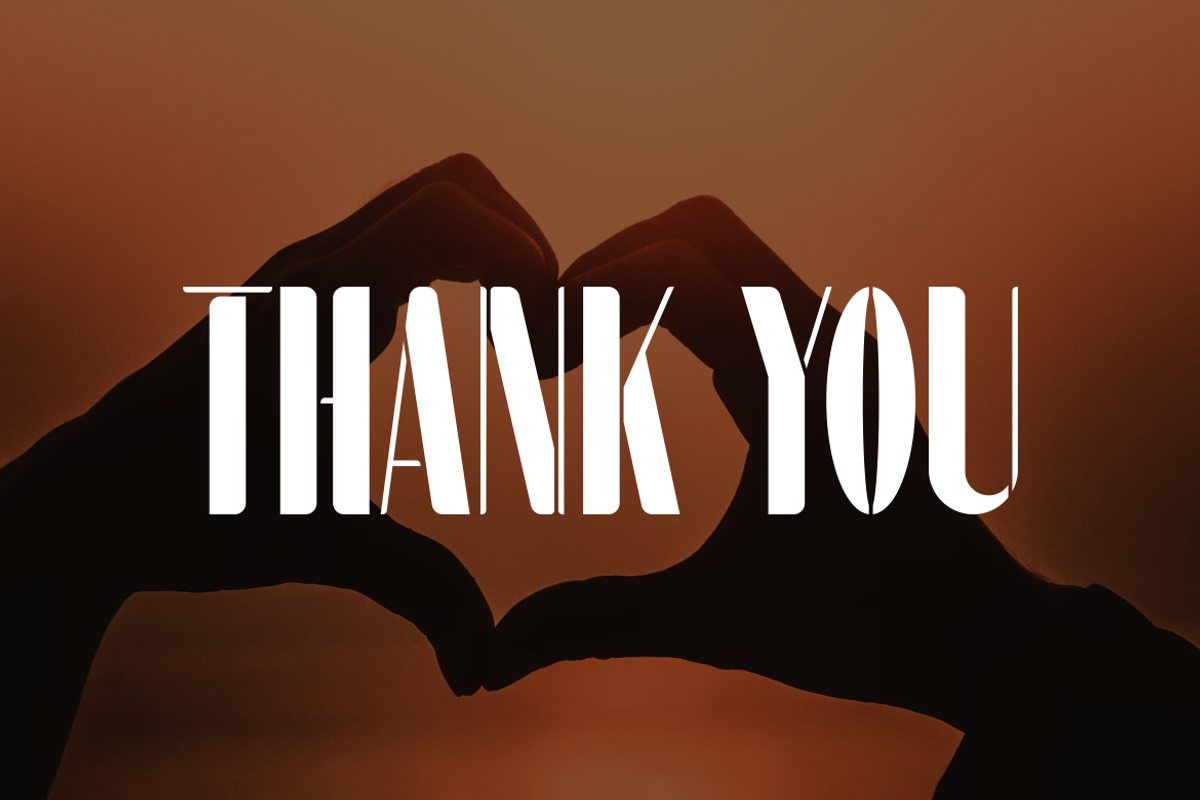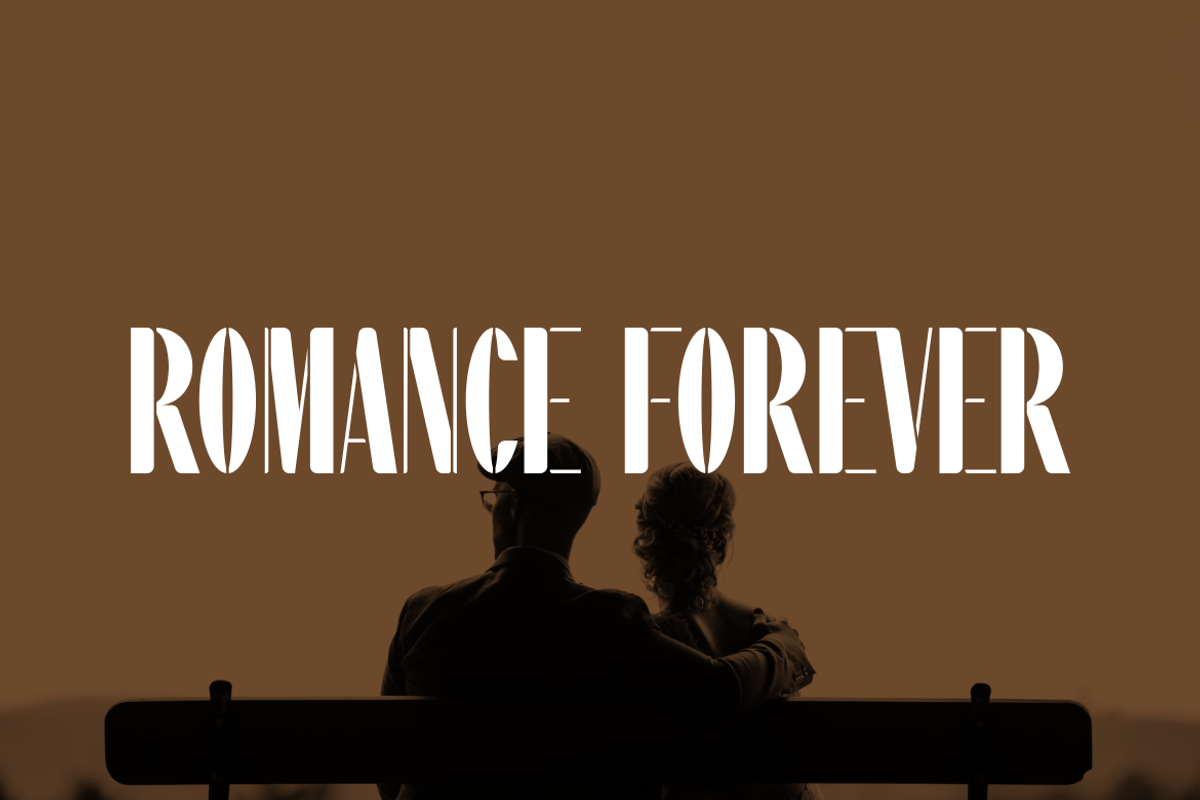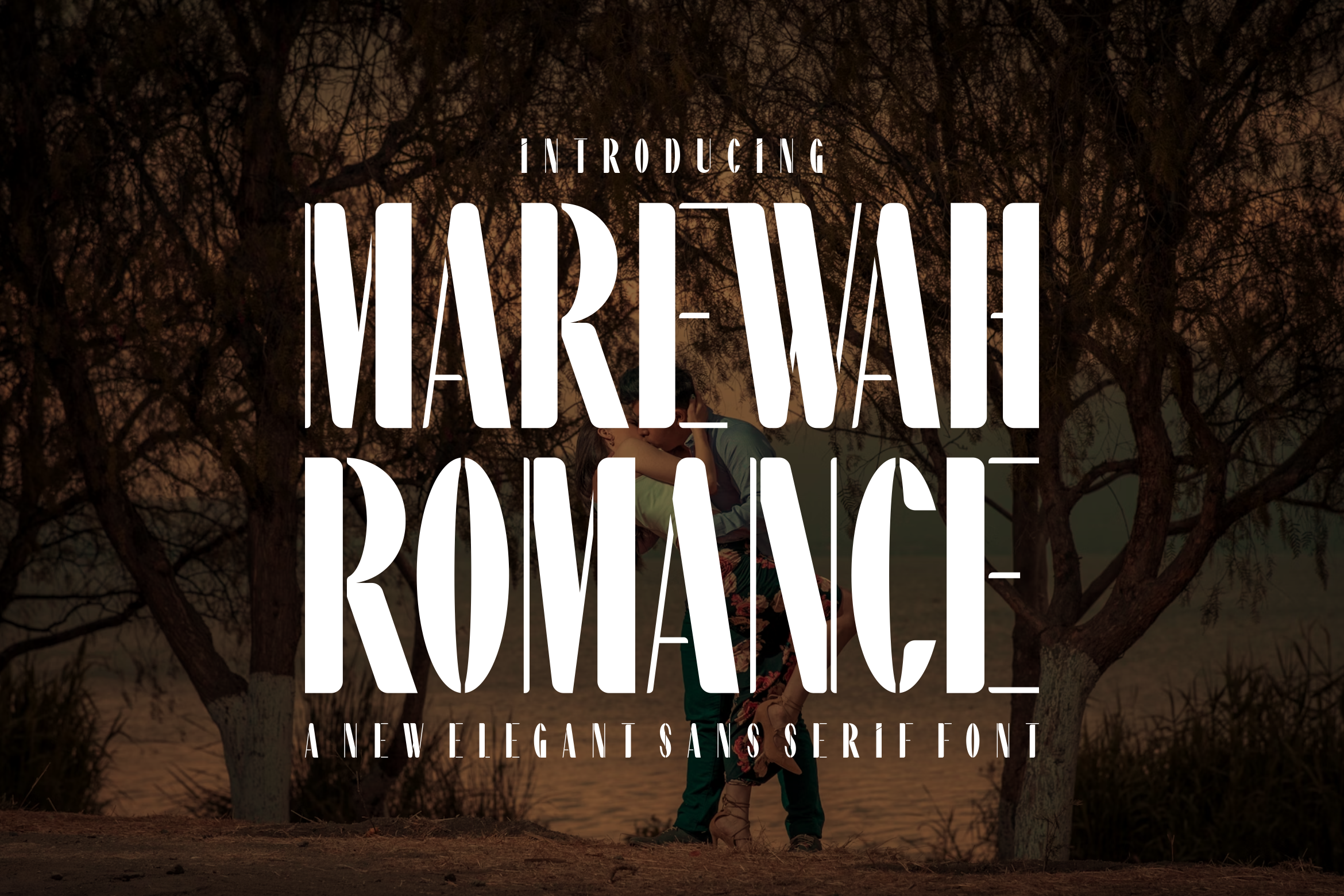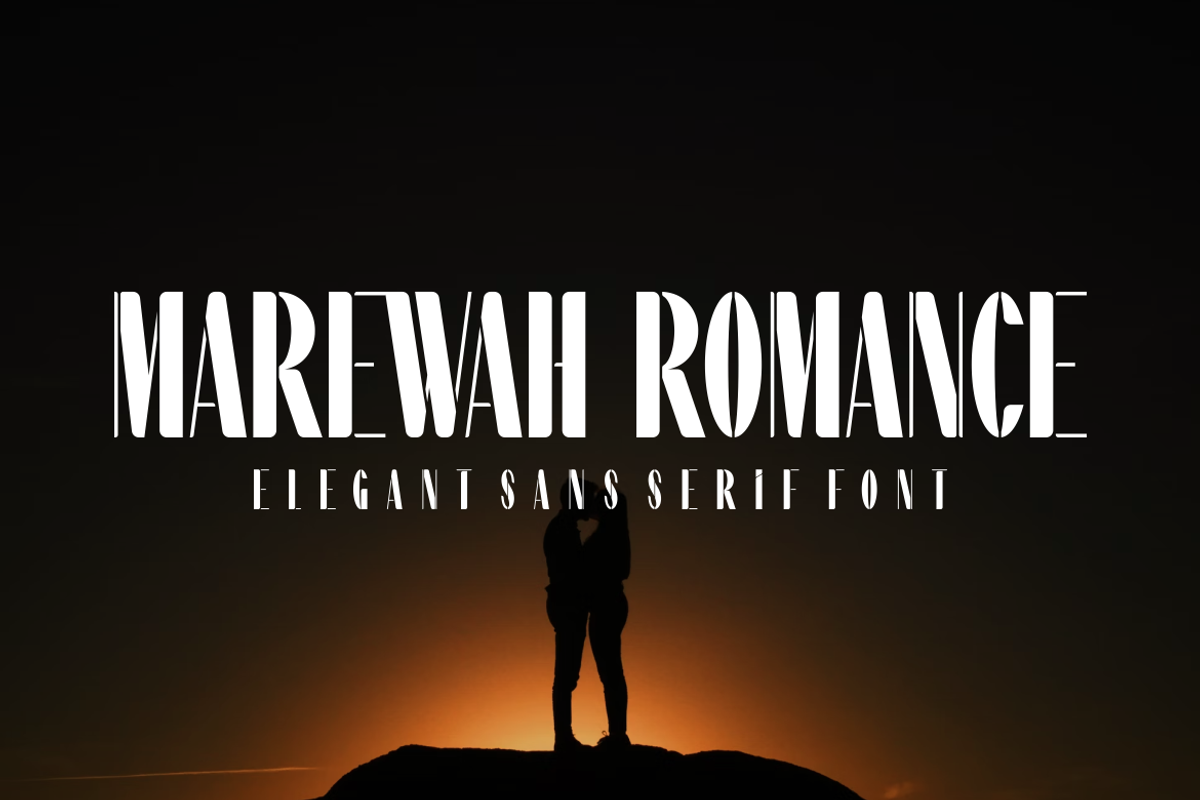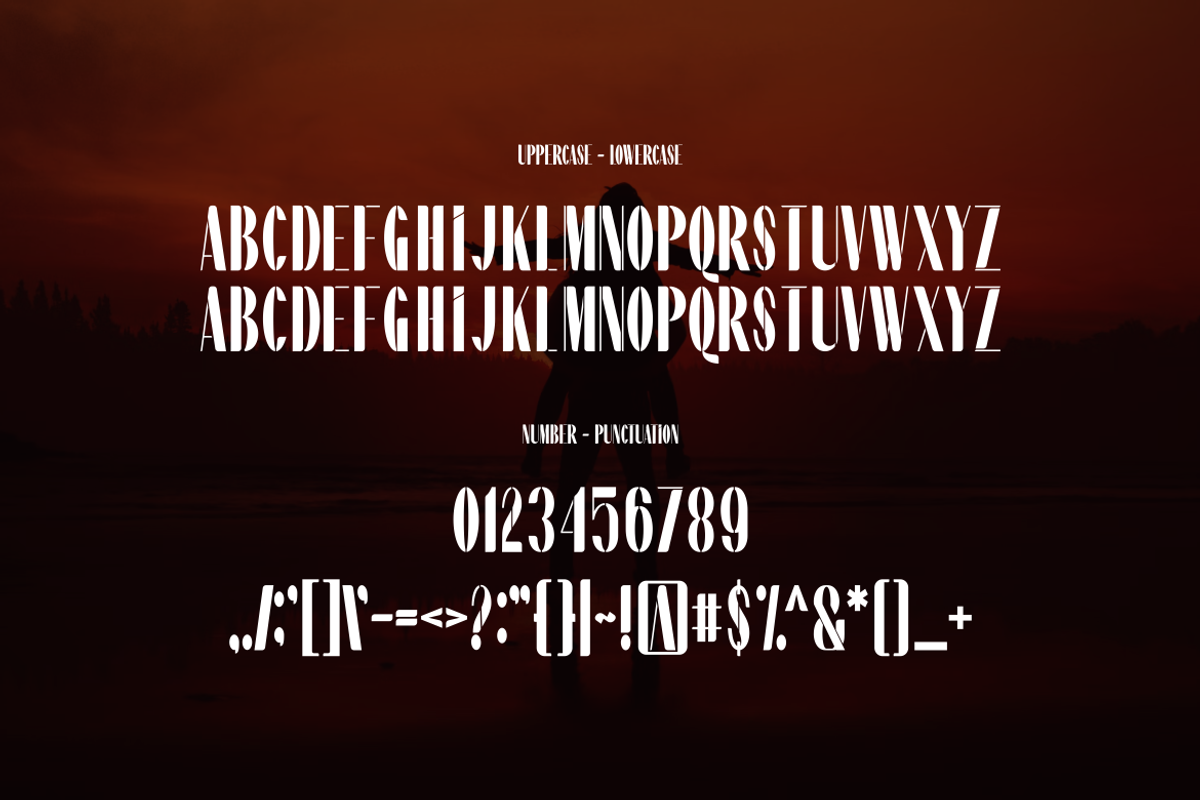
Marewah Romance - Font
- Modern Font is a bold and authentic display font. The font is suitable for any branding project like logo, t-shirt printing,, and many more. outstanding in a wide range of contexts.